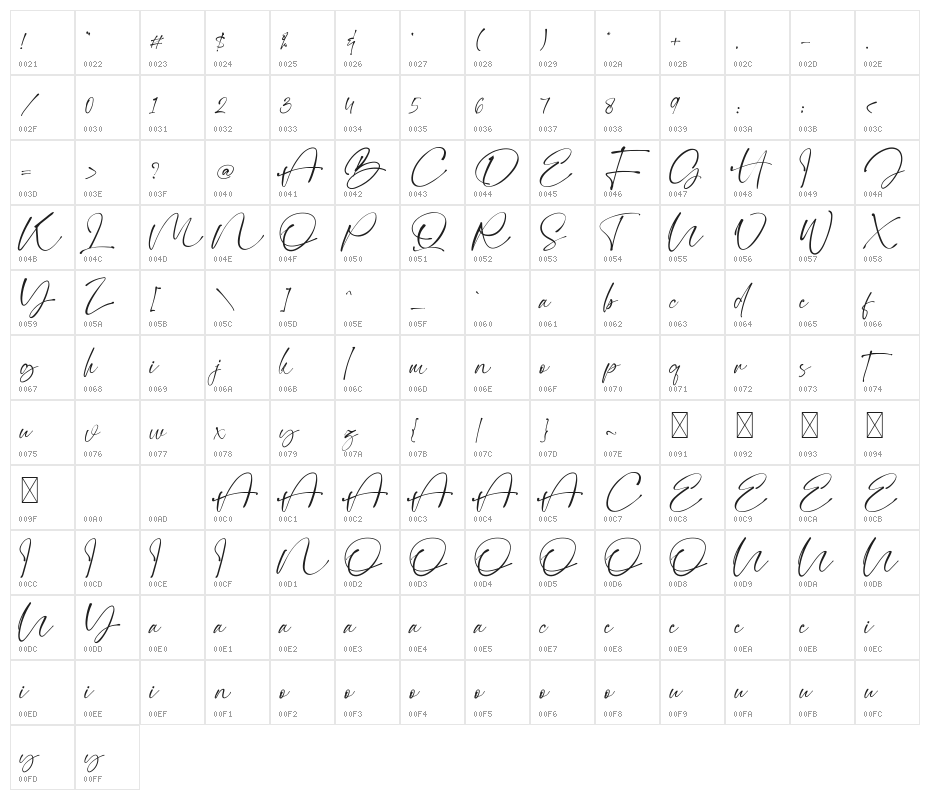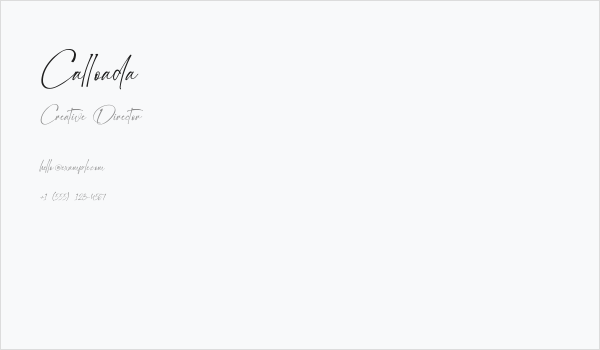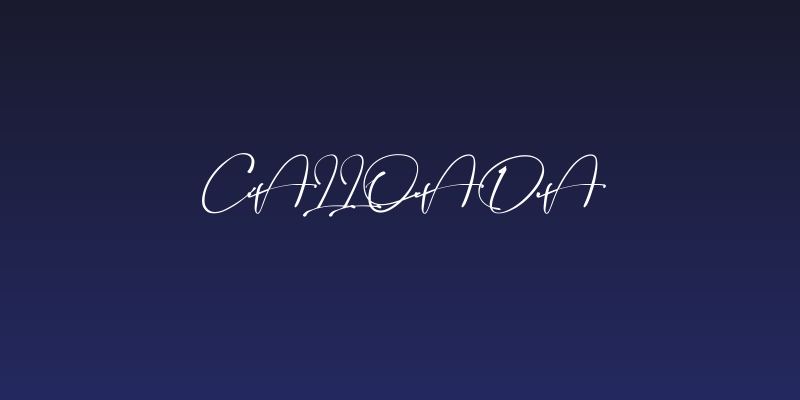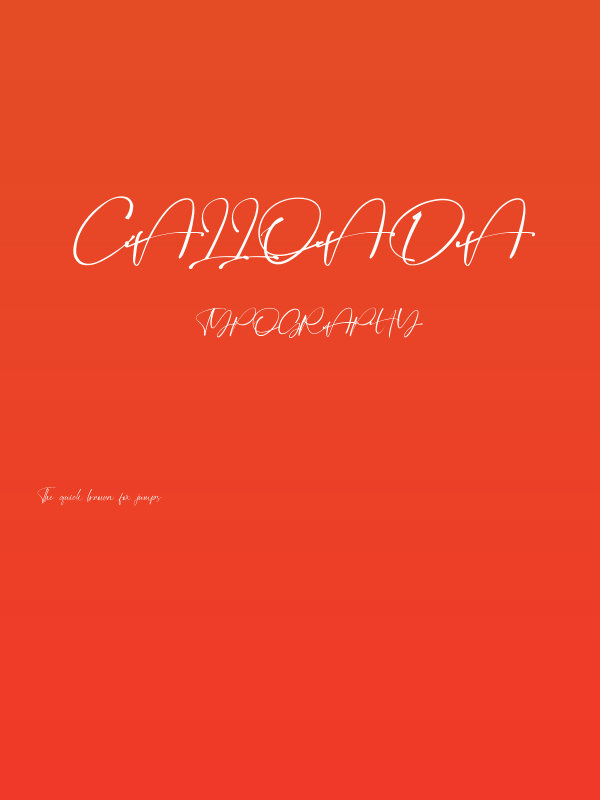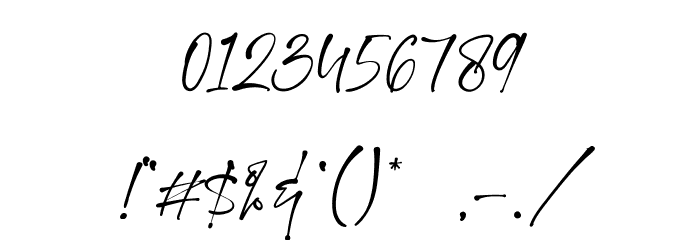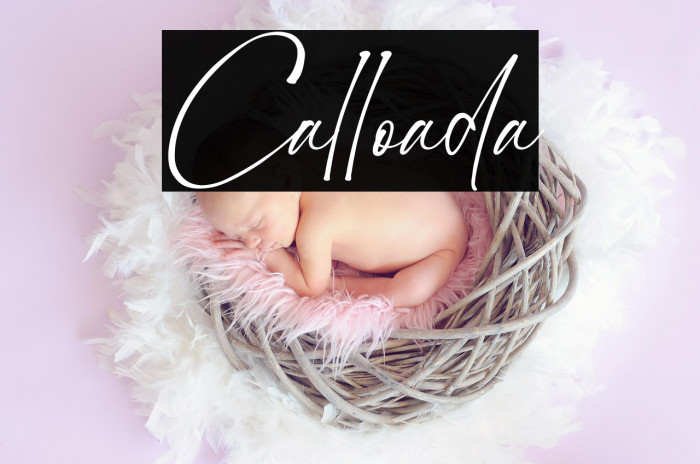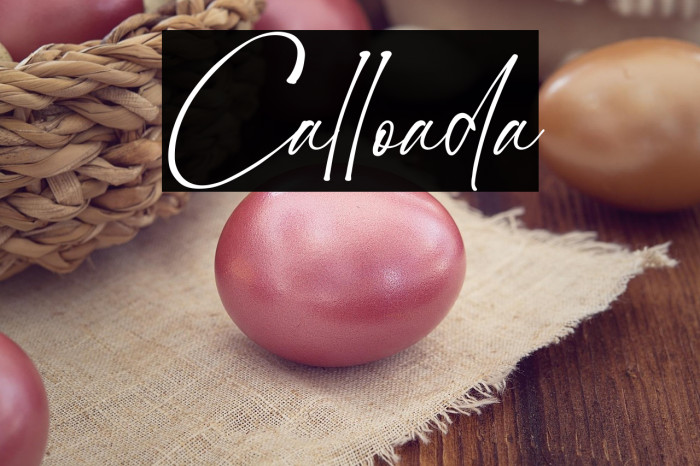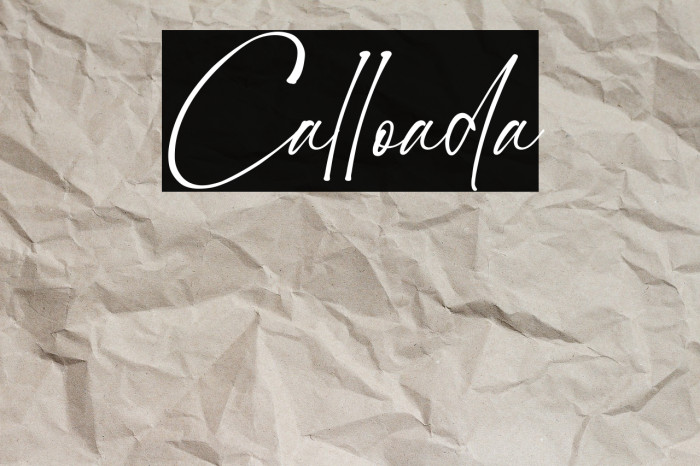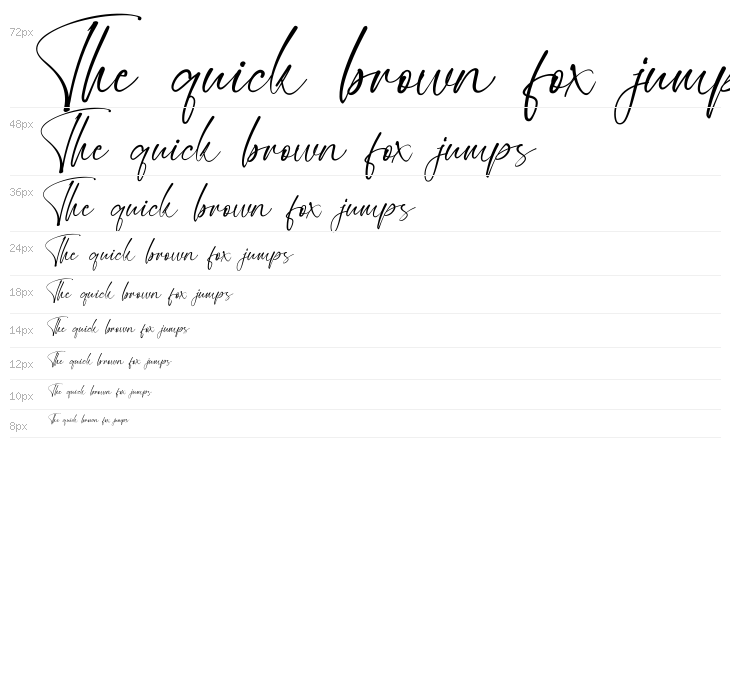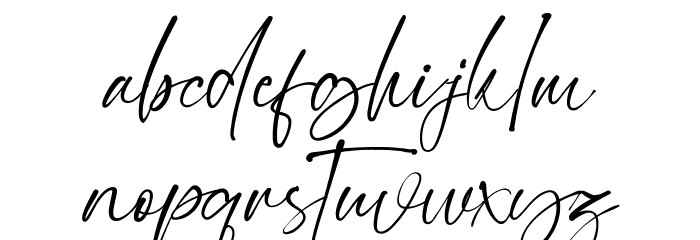
Calloada Font
Calloada Description
This font features a flowing, cursive style with elegant, sweeping lines that give it a handwritten appearance. The characters are connected, creating a continuous and fluid look. The uppercase letters are slightly larger and more ornate, while the lowercase letters maintain a consistent rhythm and balance. The numerals and special characters are designed to match the overall aesthetic, with a touch of sophistication and flair. This font exudes a sense of elegance and creativity, making it suitable for projects that require a personal and artistic touch.
| Proposed Projects | Ideal for wedding invitations, greeting cards, branding, and artistic projects that require a personal touch. |